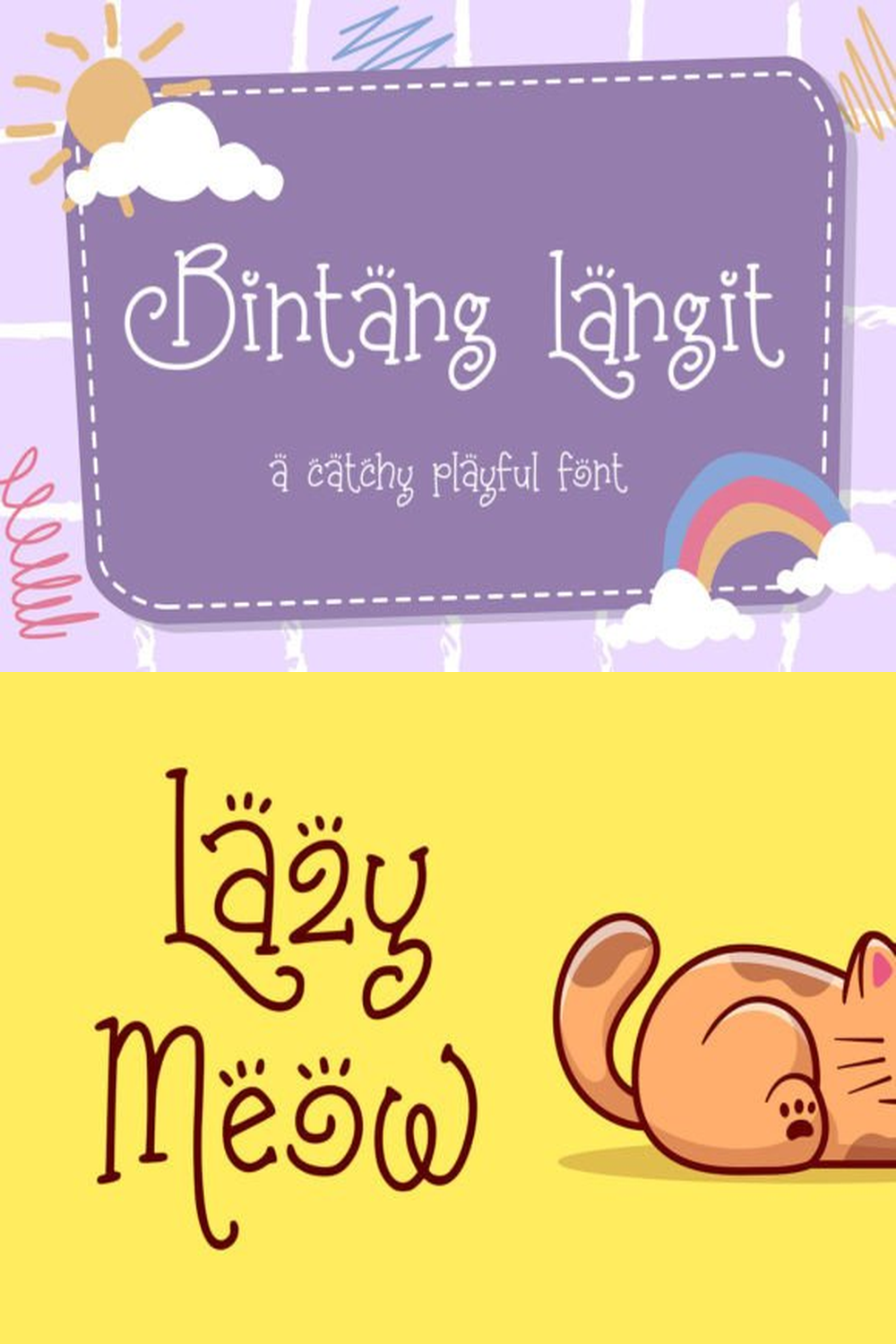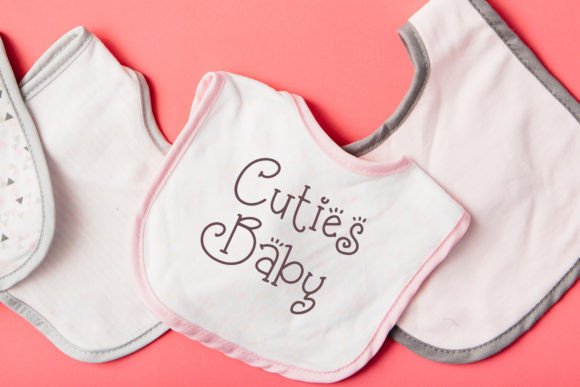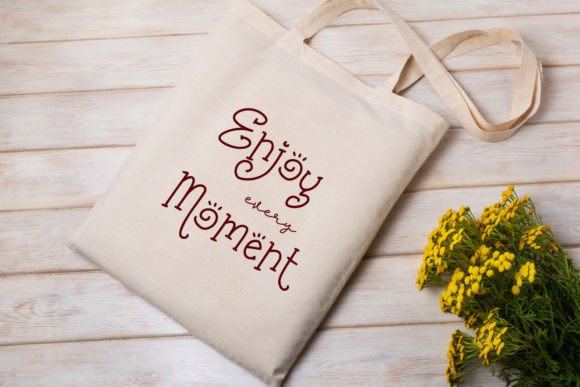
Bintang Langit Font
About the Bintang Langit Font
Meet Bintang Langit Font, a stunning font that brings a touch of elegance and professionalism to any design. Bintang Langit is a sweet and extremely friendly handwritten font. Its whimsical swirly characters are perfect for adding an extra touch of cheerfulness and joy to any design you wish to create!